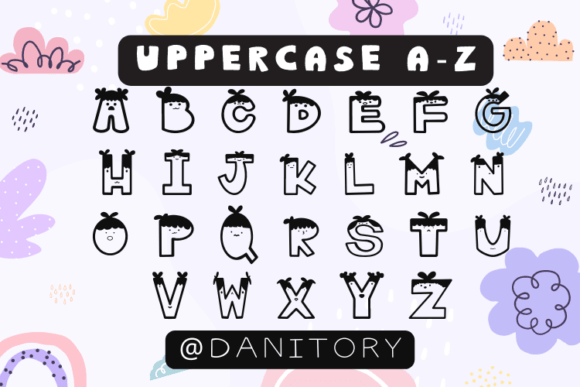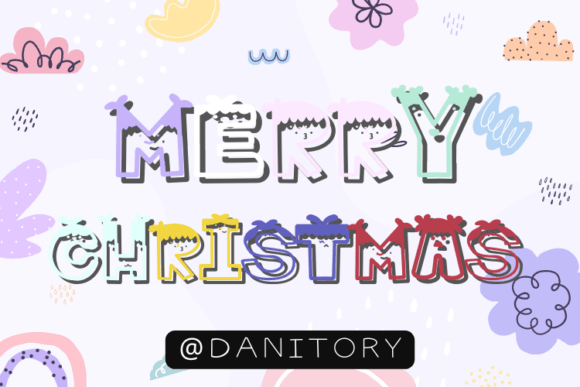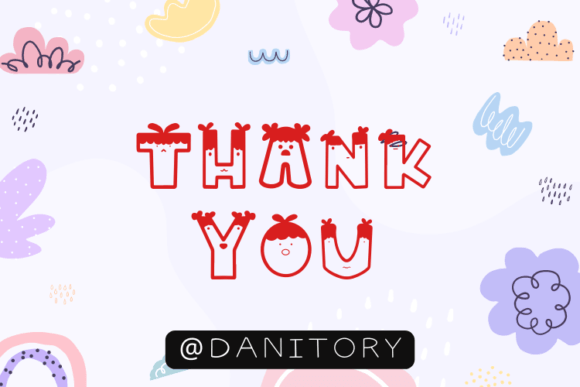
That’s where the Adorable Font comes in – a cute and lovely decorative font that’s designed to help bring your creative ideas to the highest level. With its masterful design, this font is sure to become a true favorite among designers. Its value lies in its versatility, making it perfect for a wide range of projects, from children’s books to greeting cards and beyond.
Key Features of Adorable Font
- Font Family: Adorable Font comes in a single font family with various styles, including Regular, Bold, Italic, and Bold Italic.
- Character Set: The font includes a wide range of characters, including Latin, Cyrillic, Greek, and extended characters for multilingual support.
- Font Size: Adorable Font is designed to be highly legible at various font sizes, from 8pt to 24pt, making it suitable for both body text and headings.
- Resolution: Adorable Font is optimized for high-resolution displays (Retina, HD, and 4K) and is scalable for use in digital and print applications.
- Unique Characteristics: The font features a unique, playful design with rounded shapes and subtle texture, making it perfect for children’s books, educational materials, and creative projects.
Designer Review: Adorable Font
Adorable Font is a delightful addition to any design project, offering a range of playful and whimsical styles. ✨ One of the standout features is its versatility – it works well for both digital and print applications, making it a great choice for designers who want a single font that can adapt to different contexts.
Here are some specific strengths of Adorable Font: ✨
- Wide range of styles and variations, from cursive to sans-serif
- Perfect for children’s books, greeting cards, and other projects that require a playful tone
- Highly customizable, with plenty of options for font size, color, and spacing
However, there are some limitations to consider: ⚠️
- May not be suitable for formal or professional applications, due to its playful nature
- Some users may find the font too cute or over-the-top, which can be a drawback for those who prefer a more subtle approach
Overall, Adorable Font is a great choice for designers who want to add a touch of whimsy and personality to their projects. While it may not be suitable for every application, it’s a versatile and customizable font that can add a lot of value to the right project.
Adorable Font: A Practical Application Guide
Use Adorable Font for:
- Creating whimsical and playful designs.
- Adding a touch of personality to your branding.
- Designing children’s products or educational materials.
For the most effective use of Adorable Font, be sure to balance it with clear and readable text. Experiment with different font sizes and styles to achieve the desired look.
Playfair Display has a more formal and elegant feel compared to Adorable Font, which is more playful and childlike. While Adorable Font is great for casual and fun designs, Playfair Display is better suited for sophisticated and elegant projects.